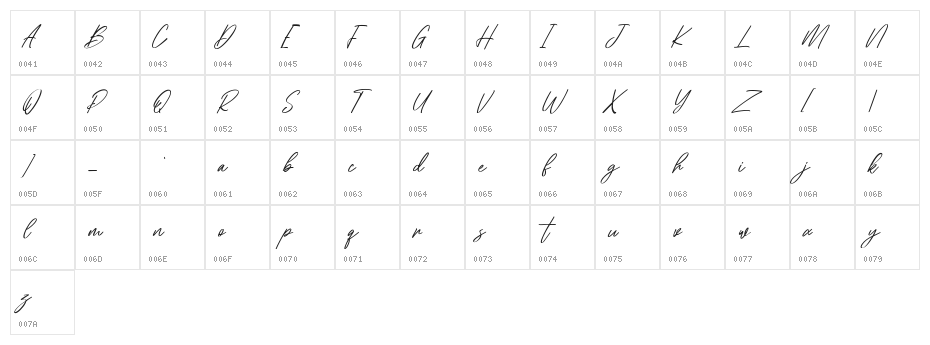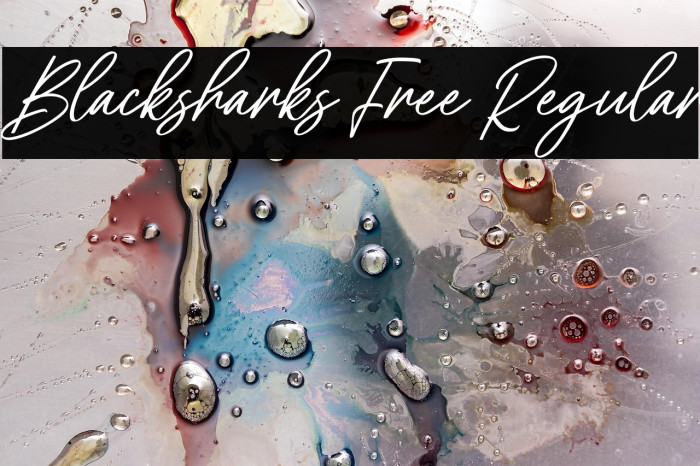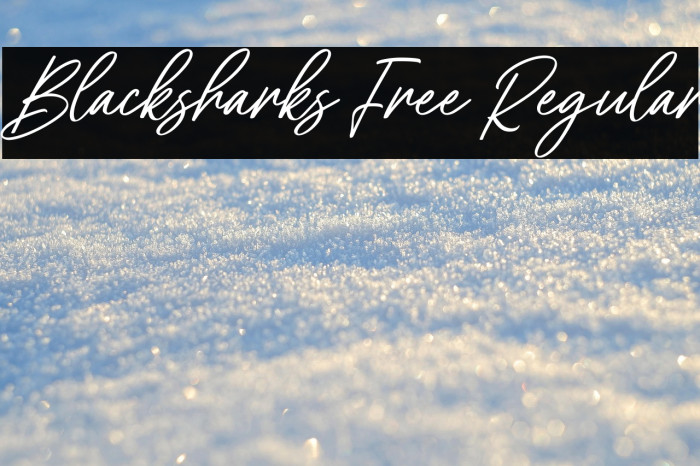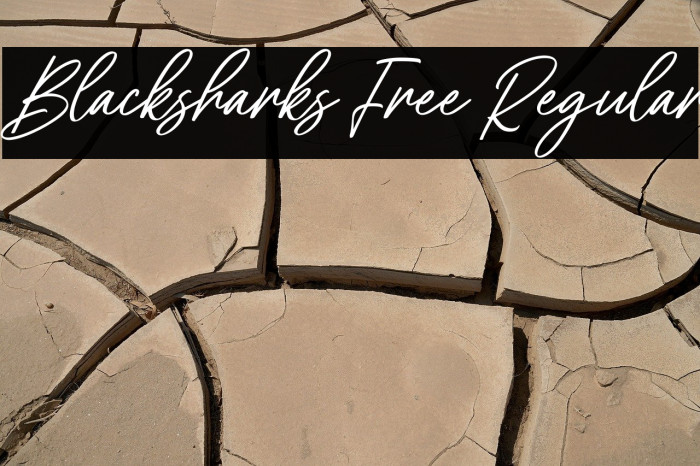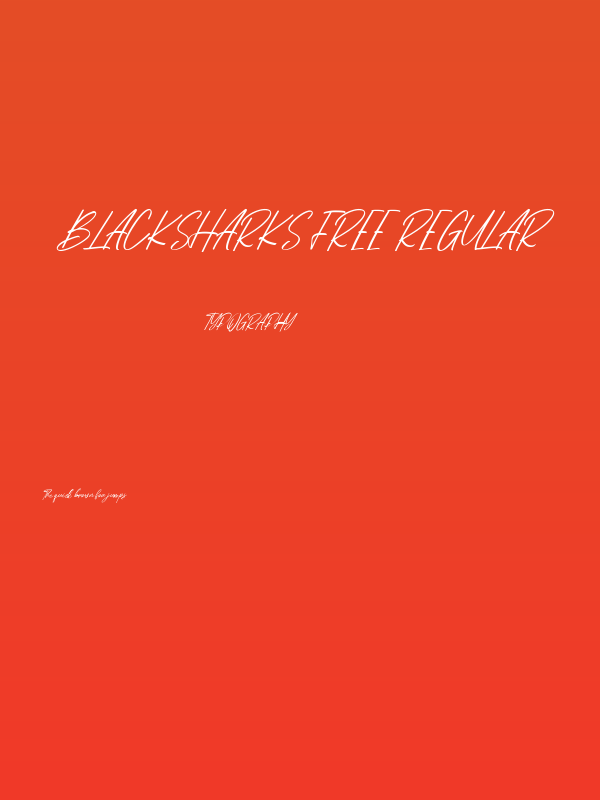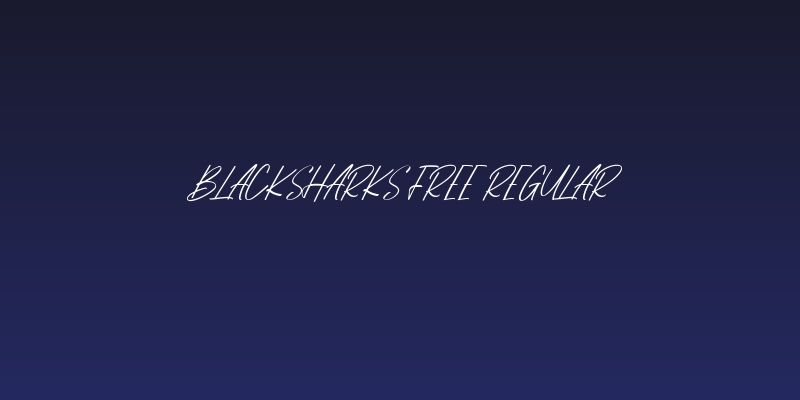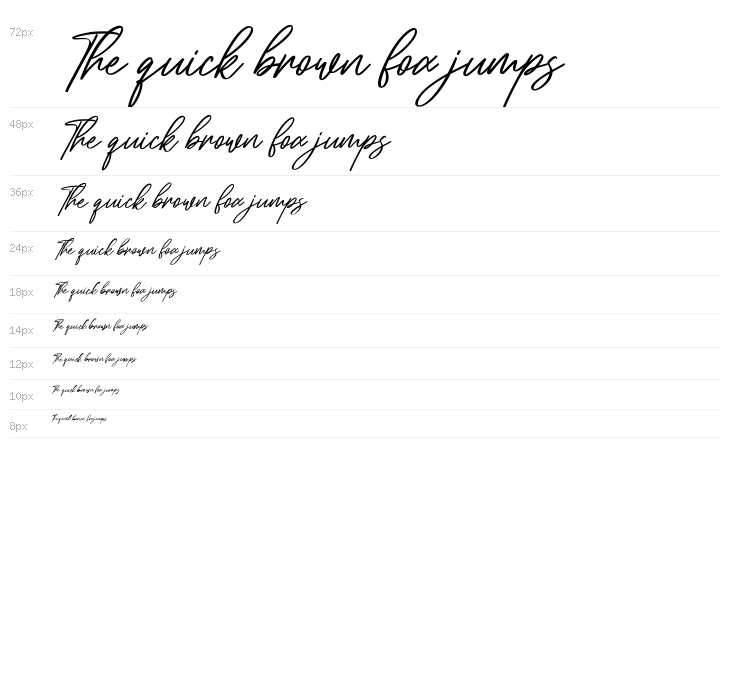
Blacksharks Free Regular Font
Blacksharks Free Regular Description
This font exudes a dynamic and energetic script style, characterized by its fluid, cursive strokes and elegant, flowing lines. The uppercase letters are bold and sweeping, with a slight slant that adds a sense of motion and grace. The lowercase letters maintain a consistent style, offering a harmonious blend of curves and loops that enhance readability while maintaining a stylish flair. The font's overall appearance is both sophisticated and approachable, making it suitable for a variety of creative applications. Its unique style is perfect for projects that require a personal touch or a sense of elegance.
| Proposed Projects | Ideal for wedding invitations, branding, greeting cards, and elegant logos. |